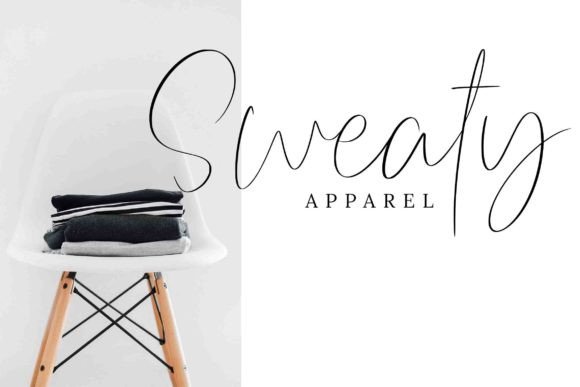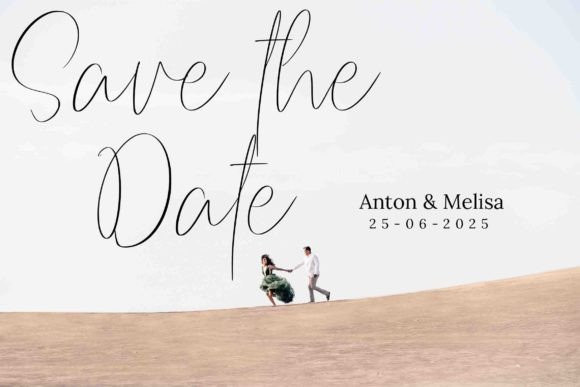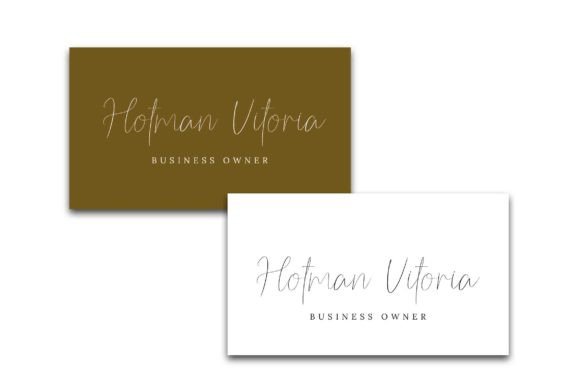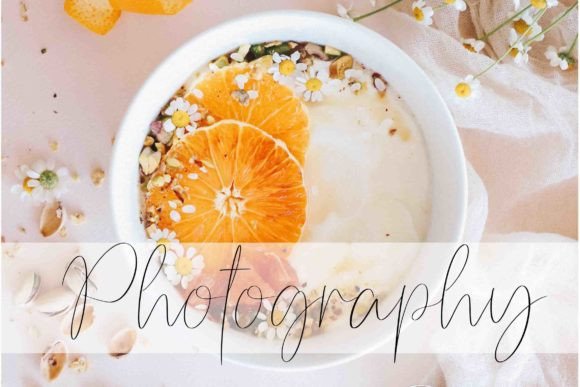
Elegant Font: The Ultimate Choice for Designers and Crafters
In the world of typography, fonts play a crucial role in conveying the tone and personality of a brand, product, or message. Among the numerous font styles available, the Elegant Font stands out for its soft, neat, and handwritten charm. This beautiful font has captured the hearts of many designers and crafters, and for good reason. In this article, we’ll explore the features and benefits of the Elegant Font, and why it’s an excellent choice for various design projects.
What is Elegant Font?
Elegant Font is a very soft and neat handwritten font that exudes sophistication and refinement. Its delicate strokes and cursive flair make it a perfect choice for designs that require a touch of elegance and luxury. This font is designed to be versatile, making it suitable for a wide range of applications, from product packaging and branding projects to magazines, watermarks, social media, wedding cards, invitations, and more.
Key Features of Elegant Font
- Soft and Neat Handwritten Style: Elegant Font boasts a smooth, cursive script that adds a touch of warmth and personality to any design.
- Seductive and Attention-Grabbing: The font’s elegant and refined appearance makes it hard to ignore, drawing the viewer’s attention and leaving a lasting impression.
- Versatile and Adaptable: Elegant Font can be used in various design projects, from digital to print, and is suitable for a wide range of industries and applications.
- Easy to Read: Despite its elegant and cursive nature, Elegant Font remains highly legible, making it perfect for body text and captions.
Use Cases for Elegant Font
Elegant Font is an excellent choice for various design projects, including:
- Product Packaging: Add a touch of elegance to your product packaging with Elegant Font, perfect for luxury brands and high-end products.
- Branding Projects: Establish a sophisticated brand identity with Elegant Font, ideal for companies that want to convey refinement and luxury.
- Magazines and Publications: Use Elegant Font for headings, titles, and captions to add a touch of elegance to your publication.
- Watermark Photography: Add a subtle yet sophisticated watermark to your photos with Elegant Font, perfect for photographers who want to protect their work.
- Social Media: Elevate your social media presence with Elegant Font, suitable for graphics, captions, and quotes.
- Wedding Cards and Invitations: Make your wedding stationery truly special with Elegant Font, perfect for invitations, save-the-dates, and thank-you cards.
Why Choose Elegant Font?
Elegant Font offers a unique combination of style, versatility, and legibility, making it an excellent choice for designers and crafters. Here are some reasons why you should consider using Elegant Font:
- Unique and Distinctive: Elegant Font stands out from more traditional fonts, adding a touch of personality to your designs.
- Easy to Pair: Elegant Font pairs well with a variety of font styles, making it easy to create harmonious and balanced designs.
- High-Quality and Professional: Elegant Font is designed to deliver high-quality results, making it perfect for professional designers and crafters.
Elegant Font is a beautiful, soft, and neat handwritten font that offers a world of creative possibilities. Its versatility, legibility, and elegant appearance make it an excellent choice for various design projects, from product packaging and branding to magazines, social media, and wedding stationery. Whether you’re a designer or crafter, Elegant Font is sure to become a staple in your font collection. So why not give it a try and experience the elegance and sophistication it brings to your designs?